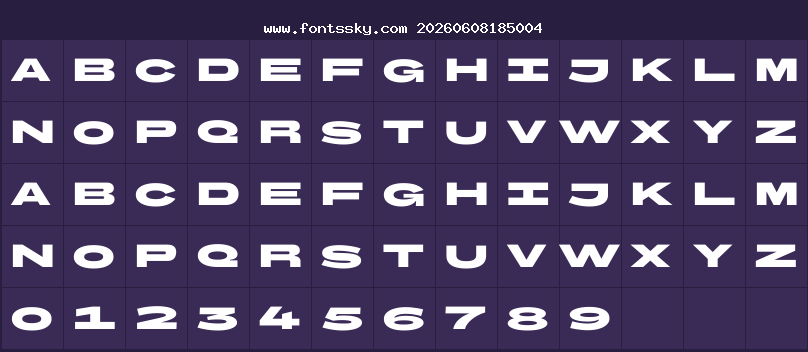
BBH Bartle Preview
• Font Name: BBH Bartle
• Full Font Name: BBH Bartle Regular
• PostScript Name: BBHBartle-Regular
• Designer: Studio Drama
• Manufacturer: Studio Drama
About BBH Bartle.ttf
BBH Bartle.ttf is a modern, elegant sans-serif font designed for ultimate readability and visual harmony. Perfect for branding, headlines, web design, and print materials.